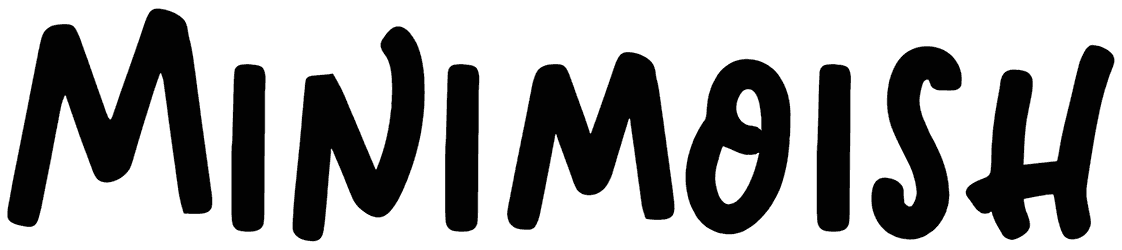
Tasty Brownies Font
Tasty Brownies is a lovely comic font that would give an exclusive advantage in the field of designing illustrations, storybook covers, stationaries, or flyers.
This glamorous handwritten font can share a vibe of playfulness, naughty, or smudgy with the audience and makes up for the lack of numbers. We have provided dozens of free-to-download fonts in the RB library, so don’t hesitate to visit our archive.
Designed by: Ali Hamidi